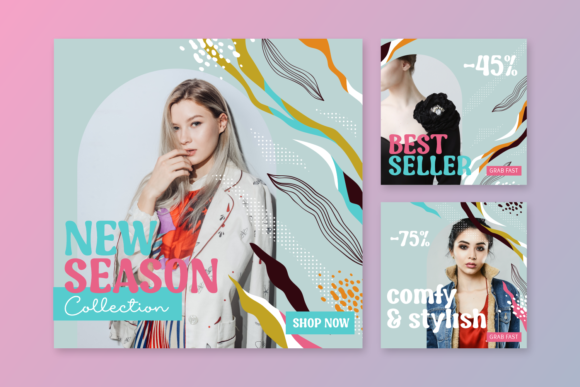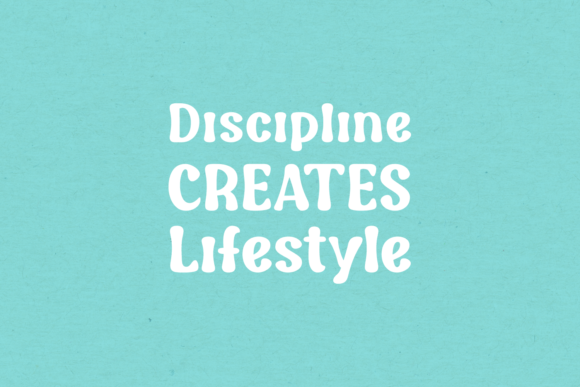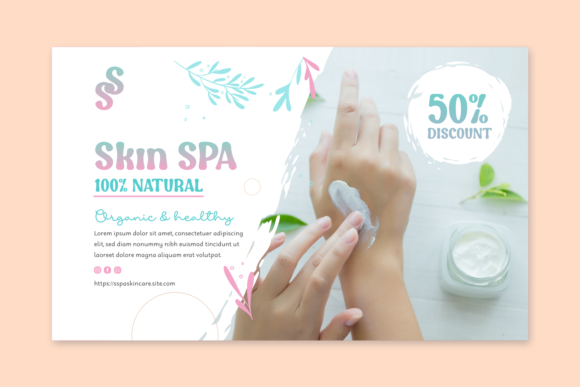
Introduction to Ningst Mode Font
Ningst Mode is a cool, friendly and thick lettered display font.
Why Choose Ningst Mode Font?
Ningst Mode Font offers exceptional quality and versatility, making it a valuable addition to your design toolkit. Whether you’re creating for personal projects or commercial use, Ningst Mode Font delivers professional results.